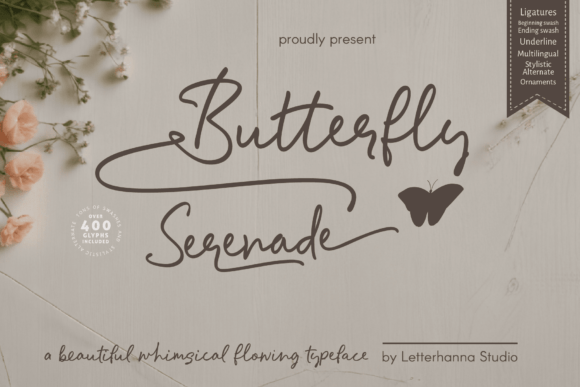
Butterfly Serenade Font: Adding a Touch of Whimsy to Your Designs
Are you looking for a font that can add a dash of elegance and playfulness to your designs? Look no further than the Butterfly Serenade font. This whimsical handwriting script font is inspired by the delicate movements of butterfly wings, and its effortless charm is sure to captivate your audience. In this article, we’ll take a closer look at the Butterfly Serenade font, its features, and how you can use it to elevate your designs.
What is Butterfly Serenade Font?
Butterfly Serenade is a handwriting script font that combines delicate loops and playful flourishes to create a light, airy feel. Each letter is crafted to bring a sense of warmth and creativity, making it perfect for designs that require a touch of whimsy. The font is inspired by the gentle flutter of butterfly wings, which gives it a sense of movement and fluidity.
The font’s design is characterized by its:
- Delicate loops and swashes
- Playful flourishes and tails
- Light and airy feel
- Whimsical and handwriting-like style
What Can I Use Butterfly Serenade Font For?
Butterfly Serenade font is versatile and can be used for a variety of design projects, including:
- Invitations: Whether it’s a wedding invitation, birthday party invitation, or baby shower invitation, Butterfly Serenade font adds a touch of elegance and whimsy.
- Greeting Cards: The font’s playful and creative style makes it perfect for greeting cards, including thank-you cards, get-well cards, and holiday cards.
- Branding: Butterfly Serenade font can add a touch of whimsy to your brand’s identity, making it perfect for businesses that want to stand out.
- Signage: The font’s light and airy feel makes it perfect for signage, including menus, flyers, and posters.
Benefits of Using Butterfly Serenade Font
There are several benefits to using Butterfly Serenade font in your designs:
- Unique and Creative: The font’s whimsical style makes it stand out from more traditional fonts, adding a touch of creativity to your designs.
- Elegant and Sophisticated: Despite its playful style, Butterfly Serenade font has an elegant and sophisticated feel that makes it perfect for high-end designs.
- Easy to Read: The font’s light and airy feel makes it easy to read, even at small sizes.
- Versatile: Butterfly Serenade font can be used for a variety of design projects, from invitations to branding.
Tips for Using Butterfly Serenade Font
Here are a few tips for using Butterfly Serenade font in your designs:
- Use it as a Headline Font: Butterfly Serenade font is perfect for headlines, as its whimsical style grabs attention.
- Pair it with a Simple Font: Pair Butterfly Serenade font with a simple font, such as Arial or Helvetica, to create contrast and make your design stand out.
- Experiment with Colors: The font’s light and airy feel makes it perfect for experimenting with different colors and textures.
- Don’t Overuse it: While Butterfly Serenade font is beautiful, it’s best to use it sparingly to avoid overwhelming your design.
Butterfly Serenade font is a beautiful and versatile font that can add a touch of whimsy and elegance to your designs. Its delicate loops and playful flourishes make it perfect for invitations, greeting cards, branding, and more. With its unique and creative style, elegant and sophisticated feel, and ease of use, Butterfly Serenade font is sure to become a favorite in your design arsenal.